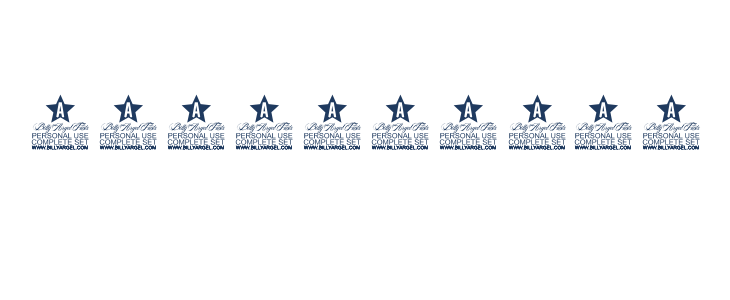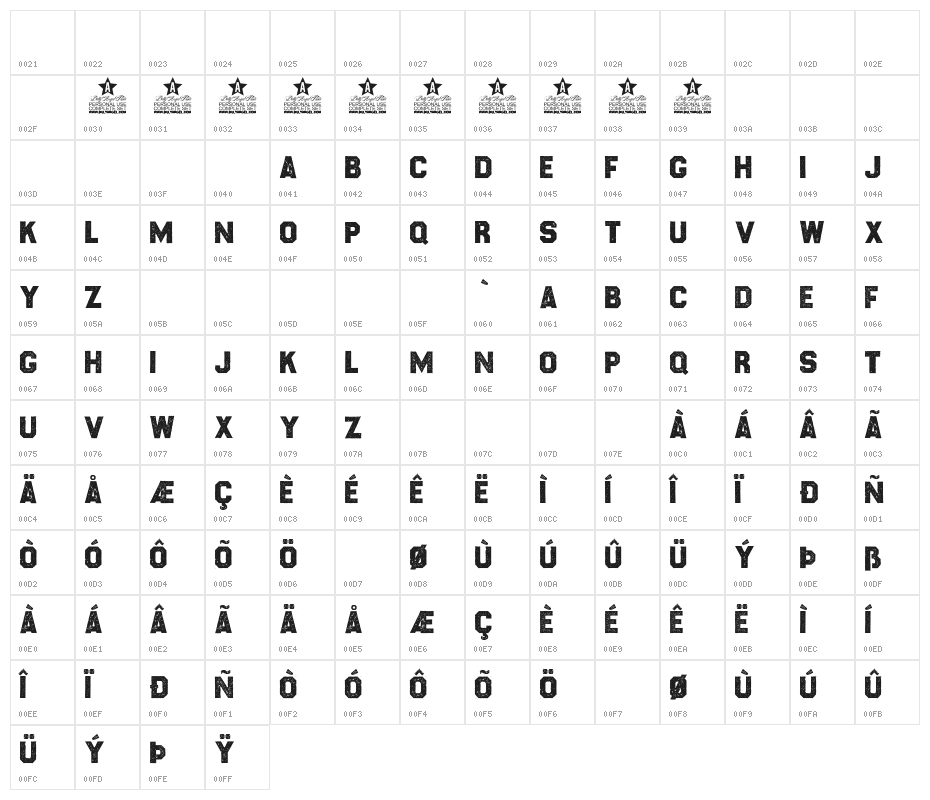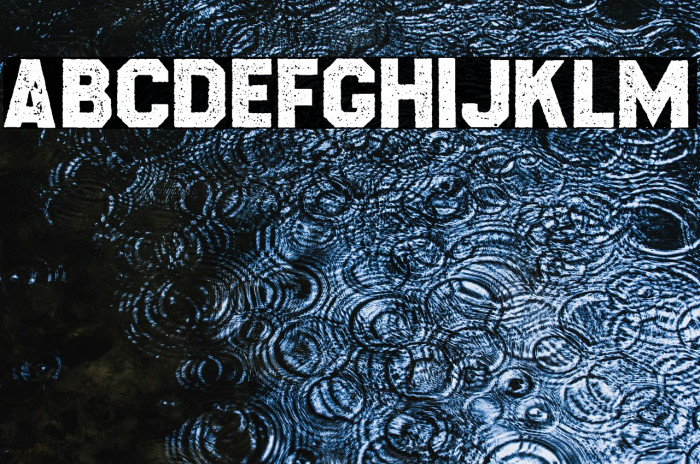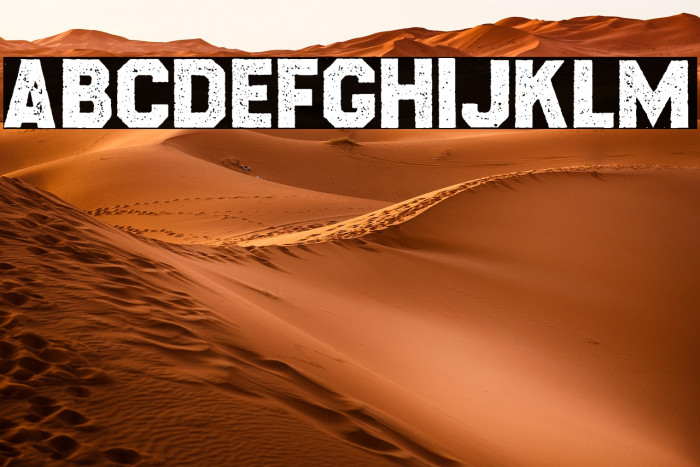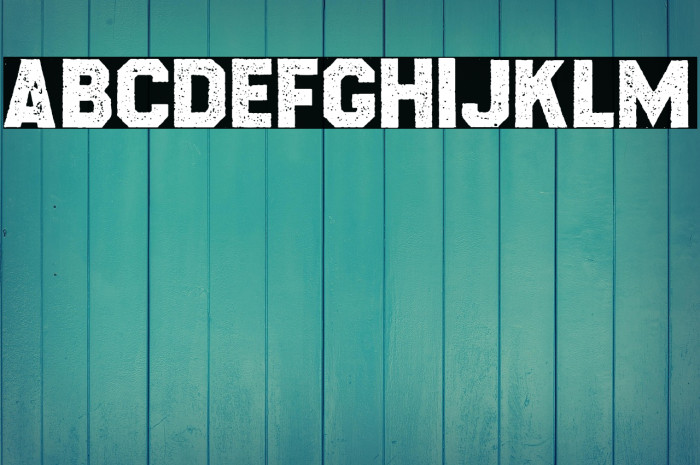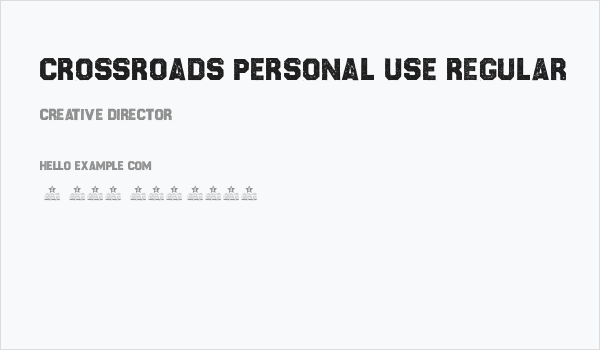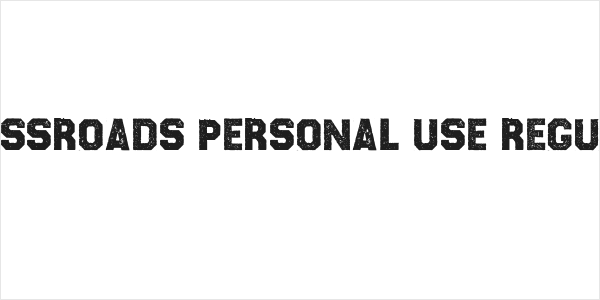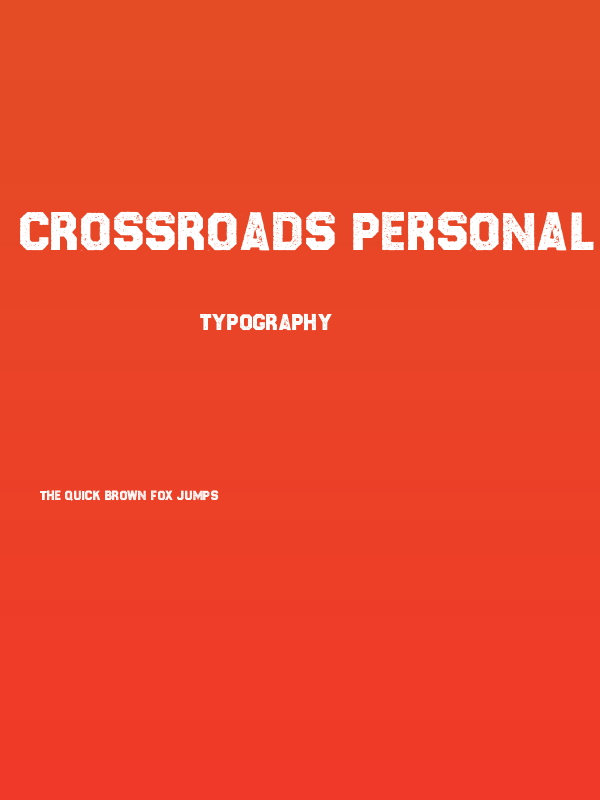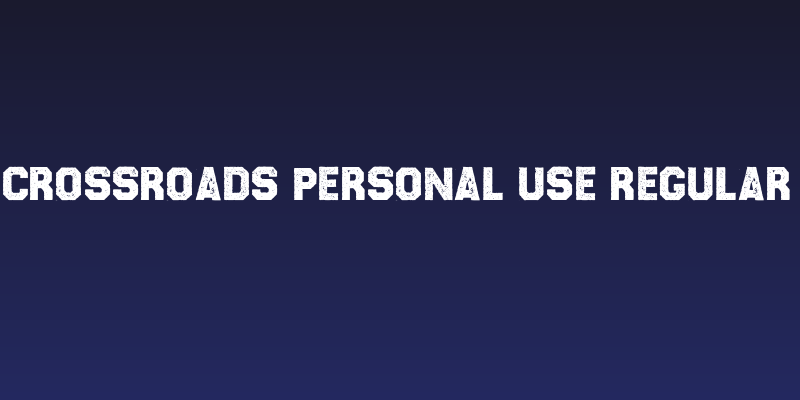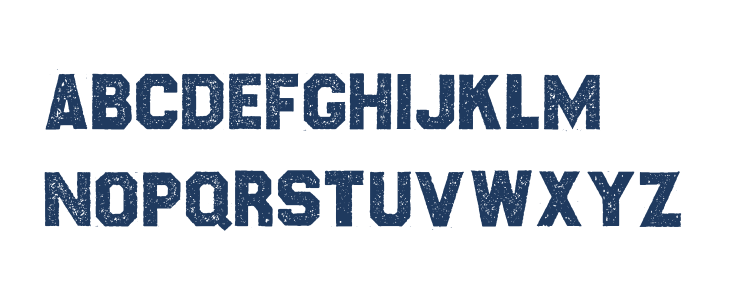
CROSSROADS PERSONAL USE Regular Font
This font features a bold, distressed style with a textured appearance that gives it a rugged, vintage feel. The uppercase letters are designed with a blocky, geometric structure, providing a strong and impactful presence. The distressed texture adds character and depth, making it suitable for projects that require a rustic or industrial aesthetic. The font's boldness ensures high visibility, making it ideal for headlines and attention-grabbing designs. Its unique style can add a touch of authenticity and grit to various creative projects.
| Proposed Projects | Ideal for posters, logos, branding, and any design requiring a vintage or industrial look. |